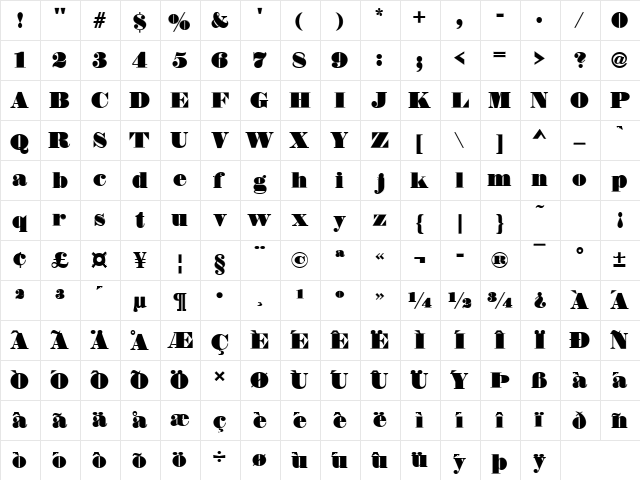
DS Thorowgood Contour Regular
| Foundry | Typographer Mediengestaltung |
| Designer | William Thorowgood, 1821 |
Design Context for DS Thorowgood Contour Typeface
DS Thorowgood Contour is a composed and adaptable typeface that performs quietly and consistently across a wide range of design contexts.